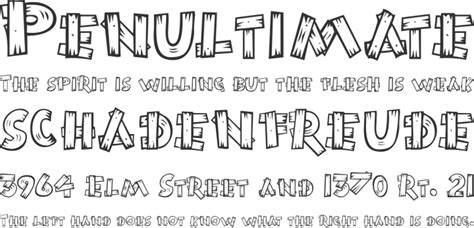
Novelty Fonts: What You Need To Know For 2023
Novelty fonts are a great way to add a unique look and feel to your texts. Whether it's a logo, a headline, website text, or a product label, novelty fonts can be the perfect way to grab attention and stand out from the crowd. With the ever-increasing number of fonts available, it's no surprise that people are looking for the perfect novelty font for their project.
A novelty font is typically a type of font that has been designed to look unique. It usually has an irregular, quirky, or exaggerated style, and the letters may be distorted or have unusual features. Novelty fonts often have a hand-drawn look, giving them an organic and natural feel. They can also have a cartoon-like appearance or be bold and eye-catching.
Novelty fonts can be used for many different purposes. They can be used to add a bit of personality to a logo, website, or product label. They can also be used to create fun and engaging headlines or titles. Novelty fonts can also be used for promotional materials or advertising campaigns. With the right font, you can make a statement and draw attention to your project.
Finding the Perfect Novelty Fonts
When it comes to finding the perfect novelty font, there are a few things to consider. The first is to think about the overall feel of the project you are working on. Are you looking for something playful and whimsical? Or are you going for a more professional and sophisticated look? Once you have a good idea of the overall feel, you can start looking at different fonts.
There are many websites that offer a wide variety of novelty fonts. It's important to preview the fonts before you select one. Make sure the font looks good and works well with the overall design. You also want to make sure that the font is easy to read and isn't too distracting. Once you have found the perfect font for your project, you can then start using it.
Tips for Using Novelty Fonts
When it comes to using novelty fonts, there are a few tips to keep in mind. First, make sure not to overuse the font. Using too many different fonts can be distracting and make the design look cluttered. Instead, pick one font and stick with it. You can also use different sizes and weights of the same font to add some visual interest.
It's also important to consider readability when using novelty fonts. Some fonts can be difficult to read, so make sure that you test out the font and make sure it's easy to read. You may also want to limit the number of characters you use in each line. This will help ensure that the text is easy to read.
Finally, you should also consider the context of the project when using novelty fonts. Are you creating a logo or a website? Are you making a product label or a promotional poster? Knowing the context of the project will help you pick the right font for the job.
Novelty fonts can be a great way to add some personality and uniqueness to your project. With so many fonts to choose from, you can find the perfect font for your project. Just make sure to consider readability, context, and usage when selecting the font. With the right font, your project is sure to stand out from the crowd.